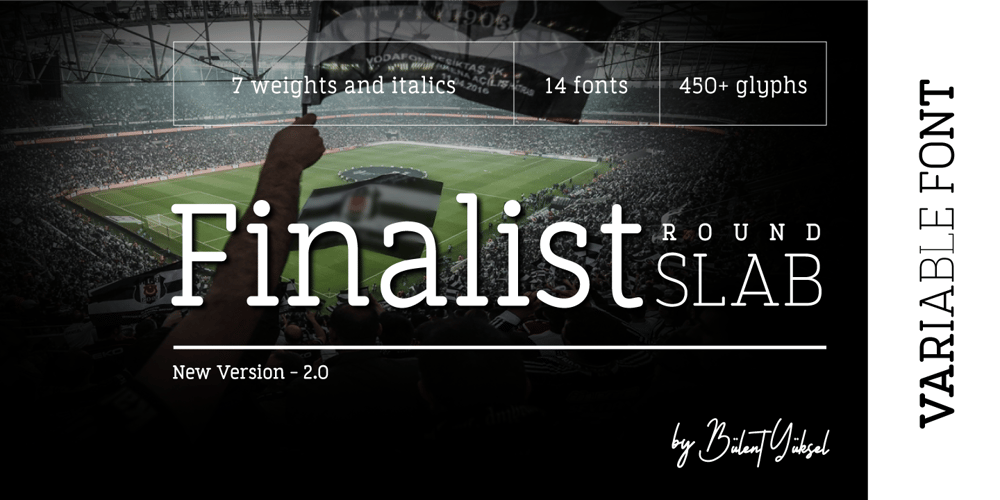
Finalist Round Slab Variable
Finalist Round Slab Variable font
Finalist Round Slab Variable Font Family was designed by Bülent Yüksel and published by Bülent Yüksel. Finalist Round Slab Variable contains 1 styles and family package options. The font was intended primarily to have a stronger body. It has a simple geometrical surface. This font has a strong personality, that makes it perfect for use in headline sizes but means it also works gracefully within text blocks. Finalists Round Slab is carefully crafted and a unique slab serif. Use for websites, print, motion graphics, logo design, packaging design, t-shirts and more.**UPDATES:**-16 Agust 2021: New version 2.0 Variable Font -28 January 2022:Some bug fixesYou can enjoy using it.